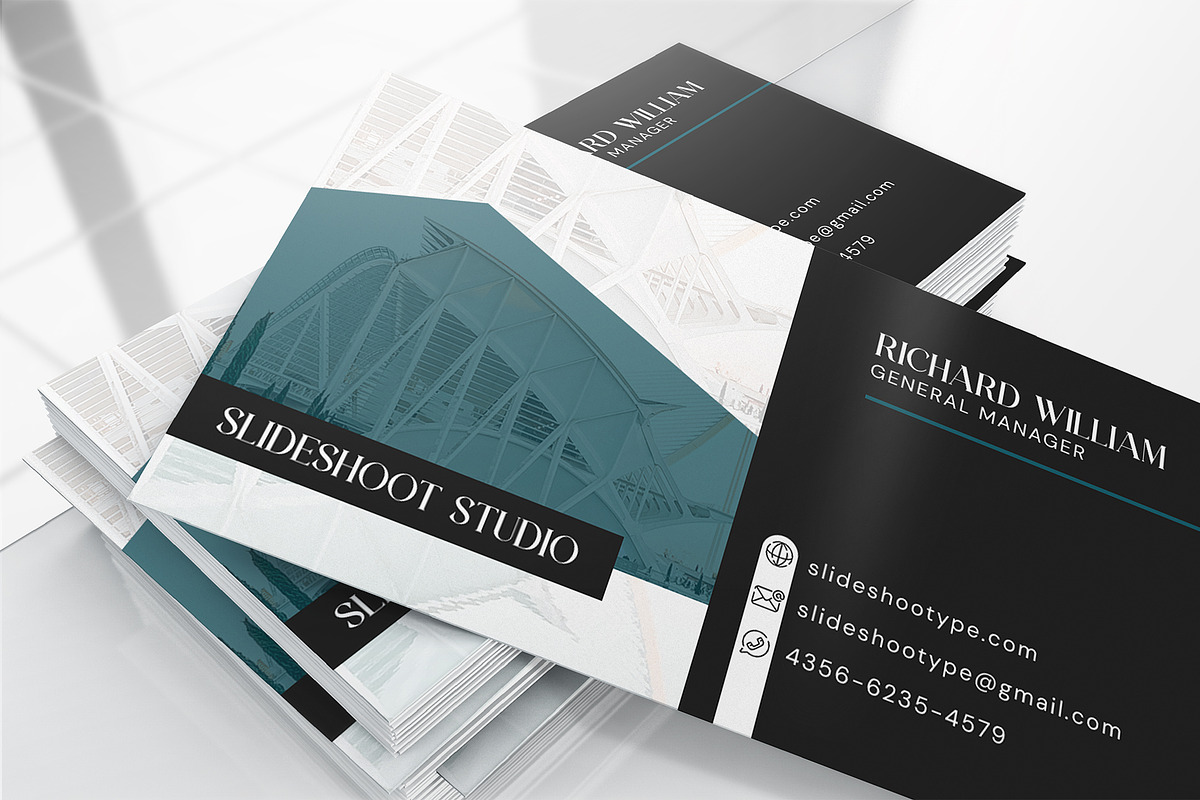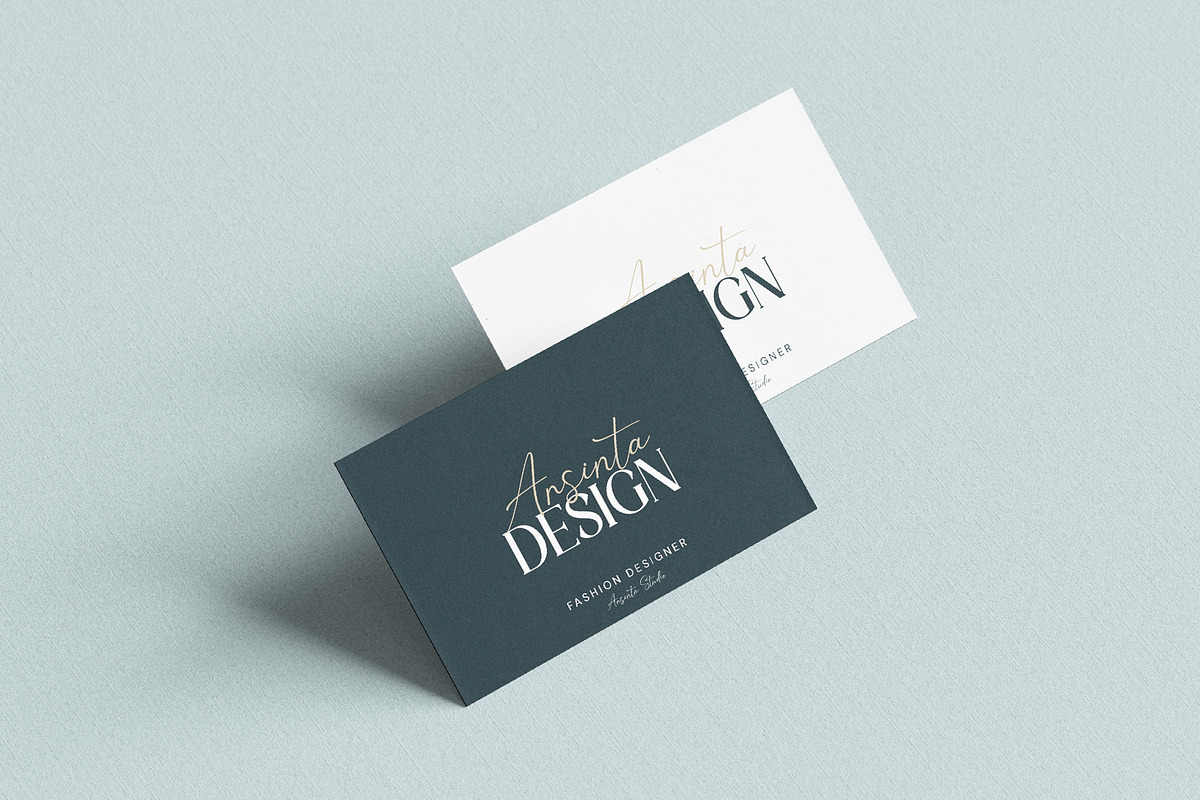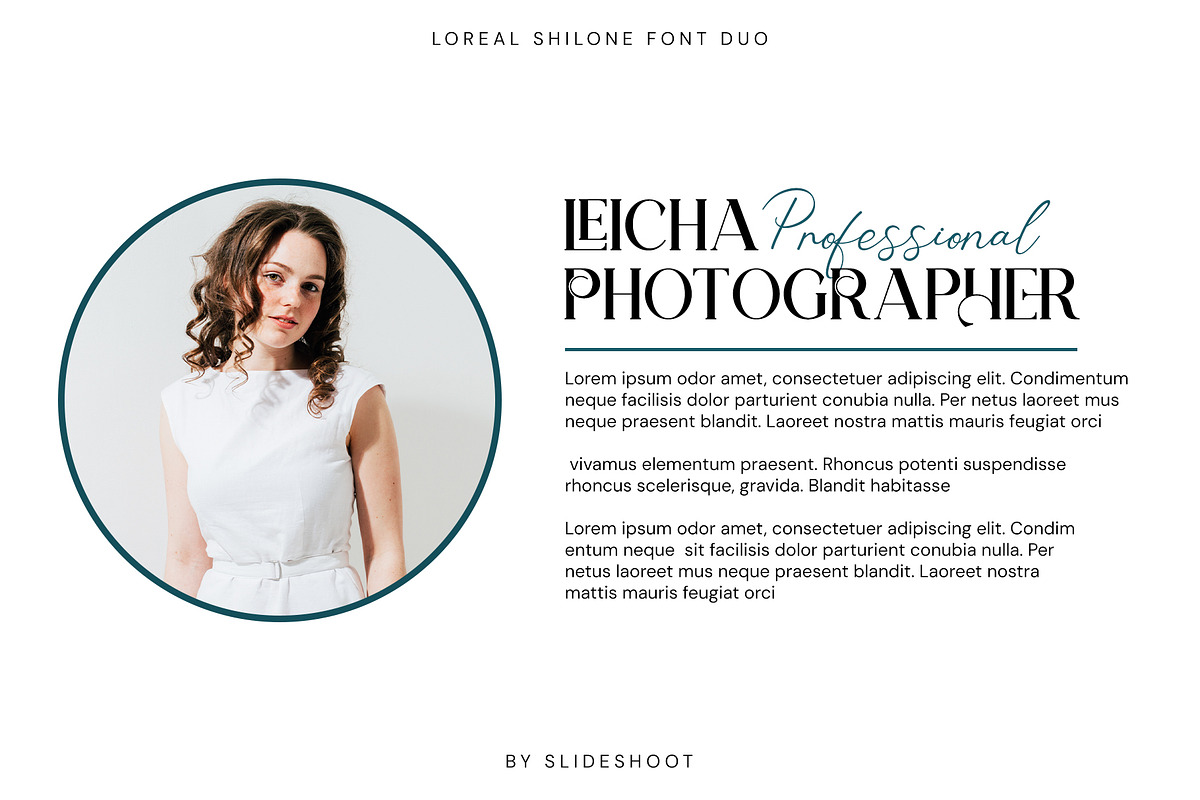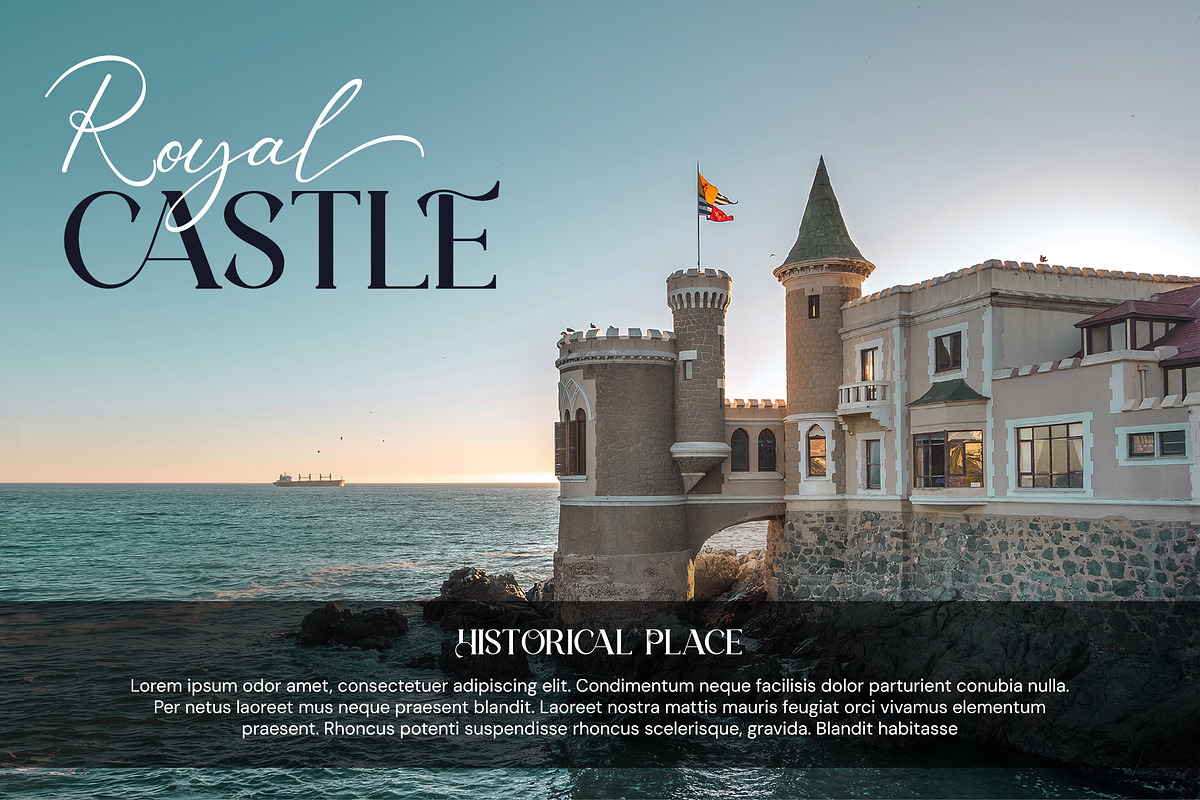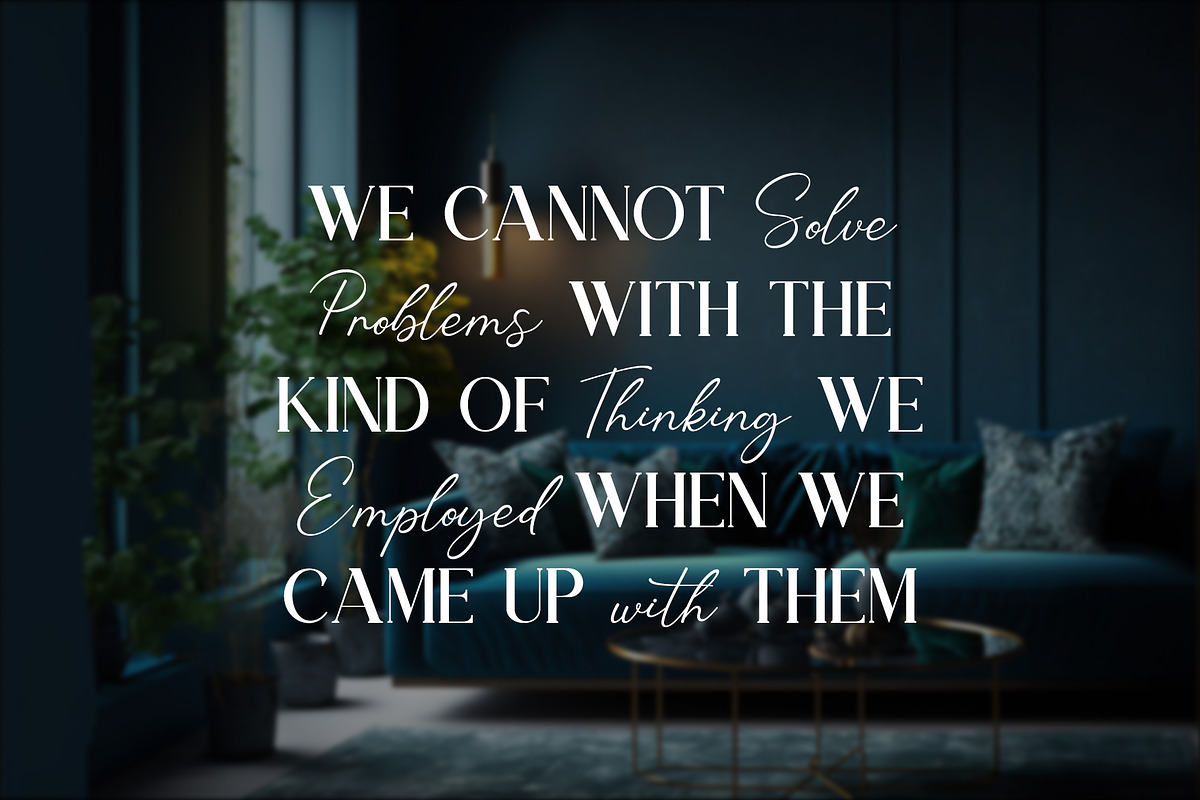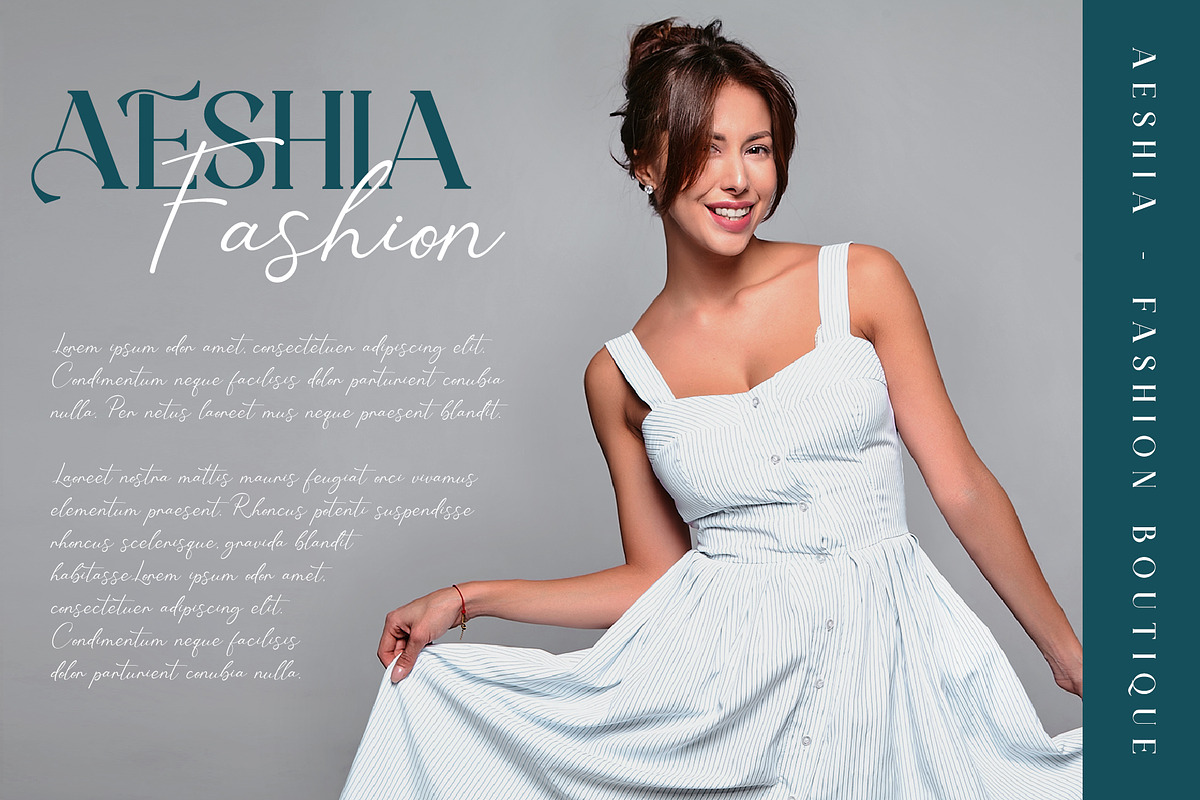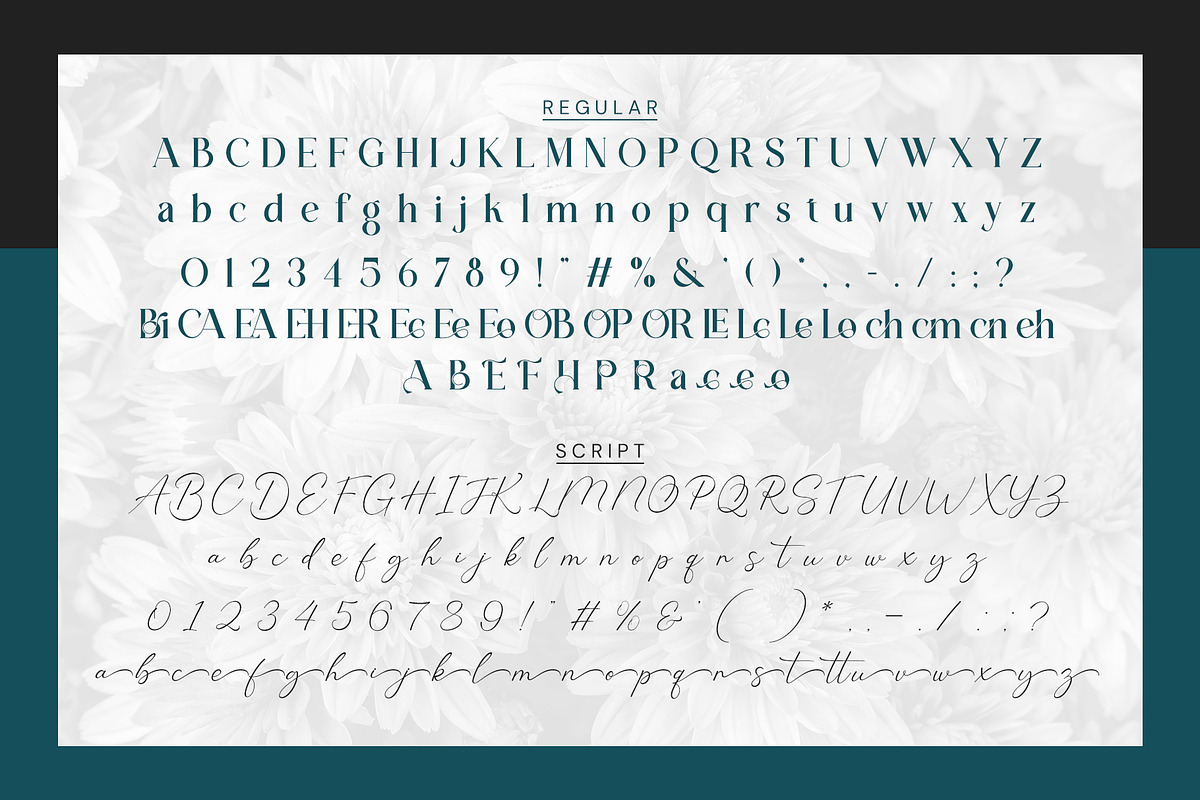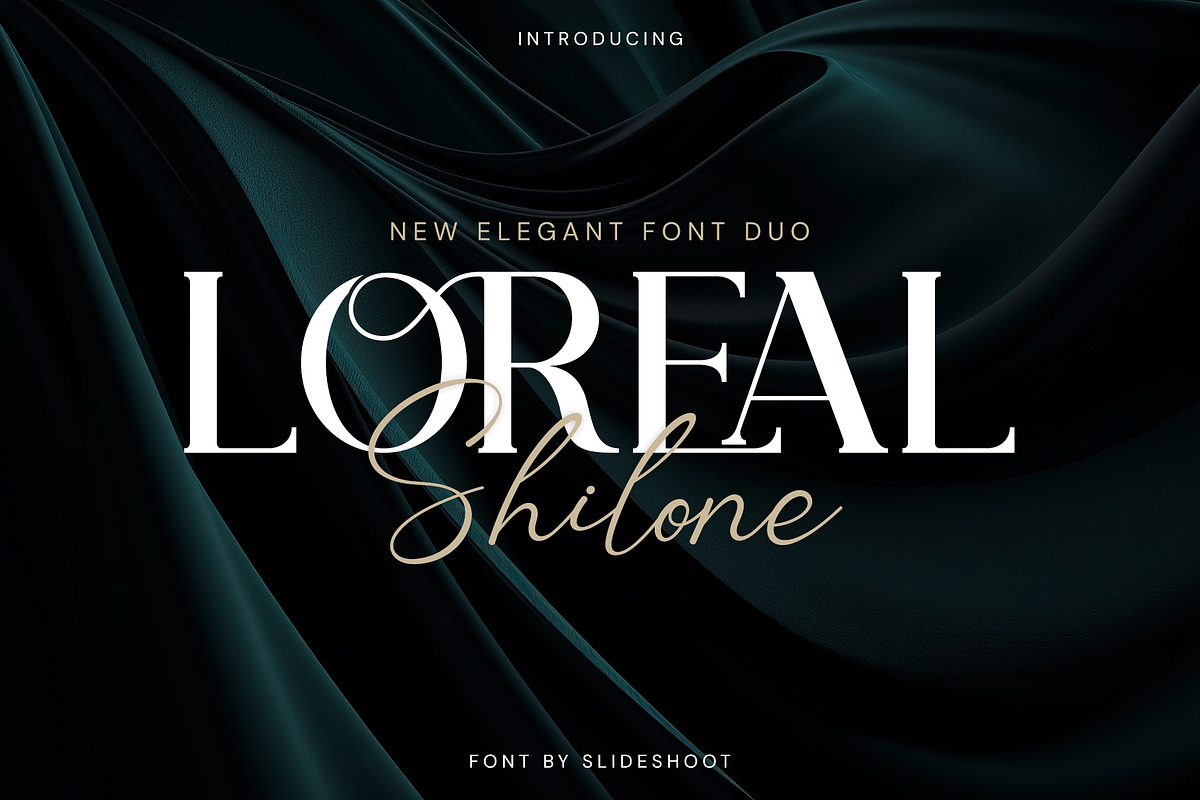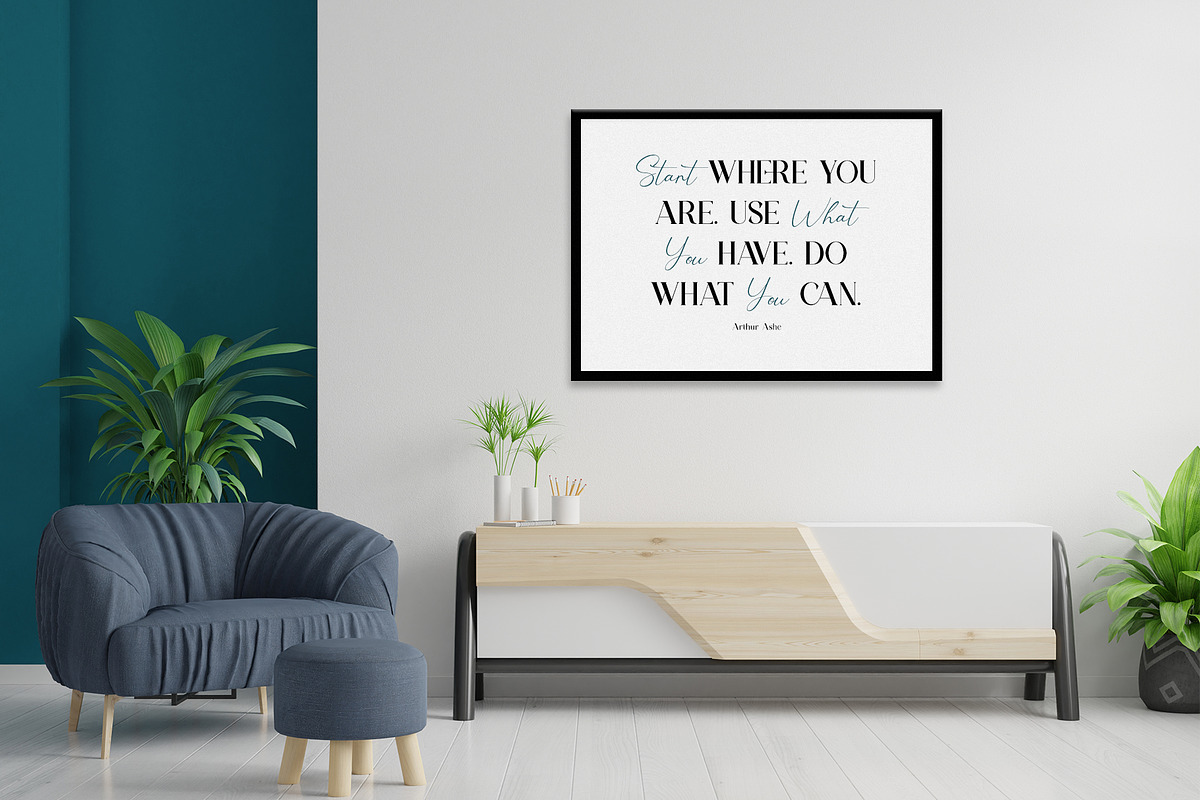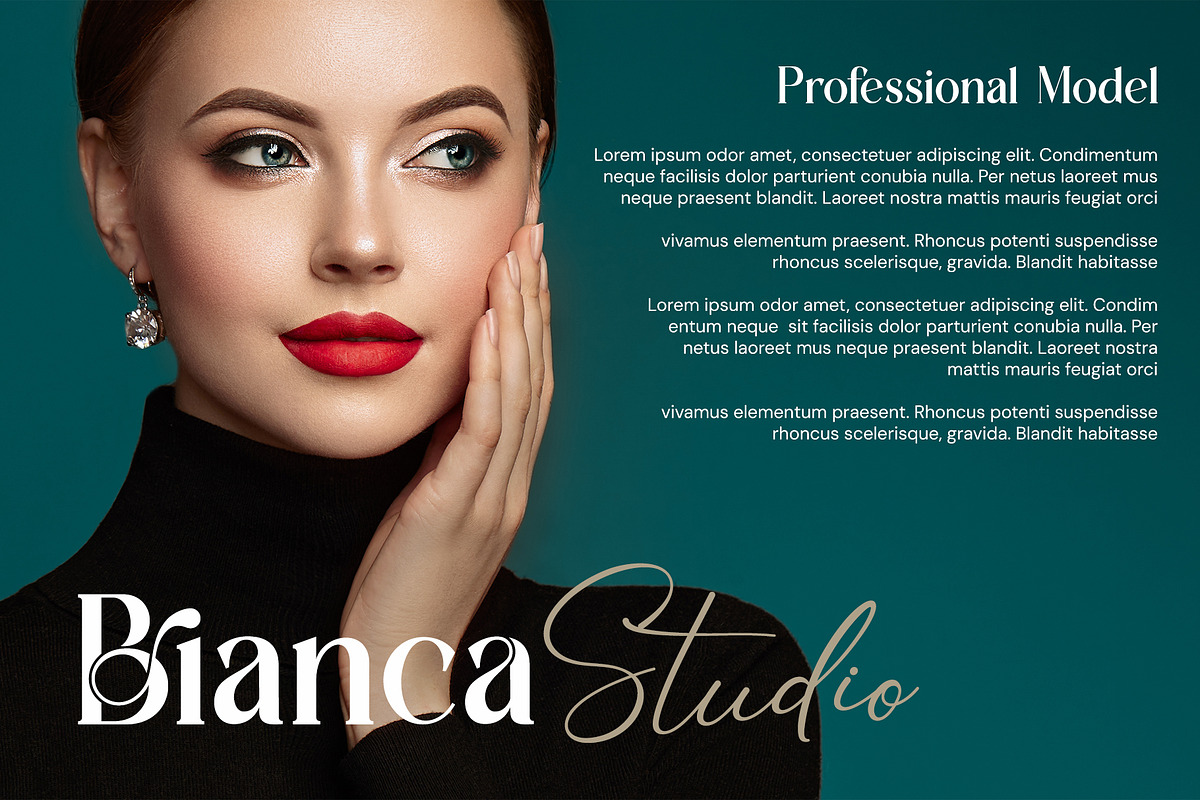
Loreal Shilone - Font Duo
Loreal Shilone is a classy duo font that includes modern serif and script, which is perfect to use together in your design. It can be used for titles, logos, brands, magazines, product packaging, and invitations. Its elegant, stylish, classy, graceful and modern touch with clean lines and smooth curves gives an extra touch of class to any project. Making this font a perfect partner for any project.